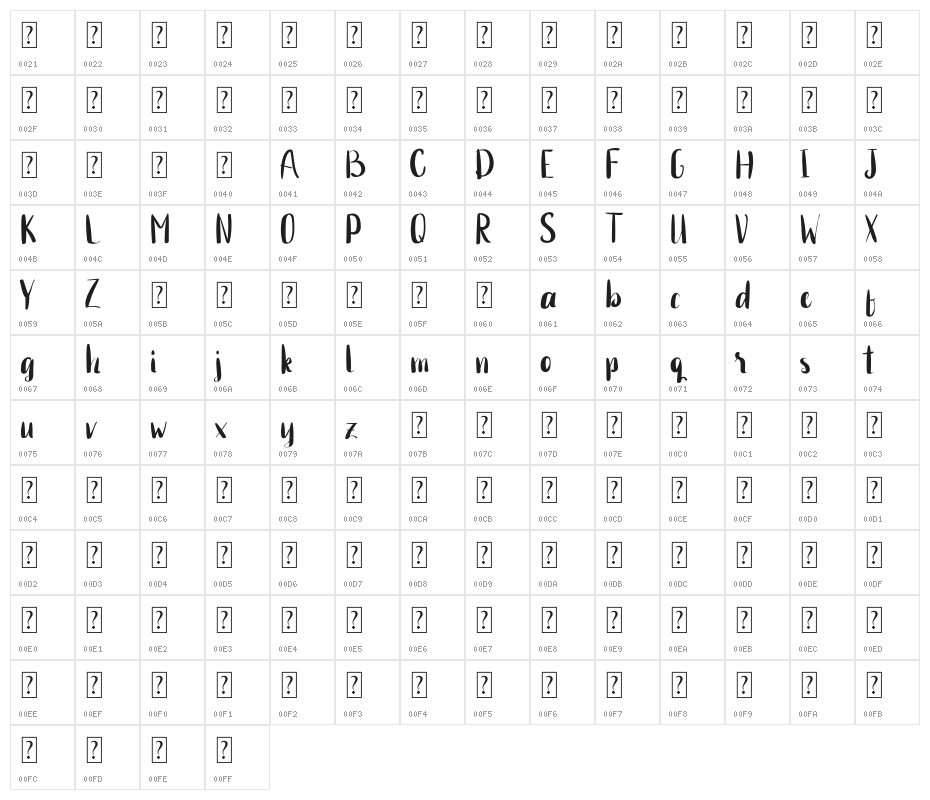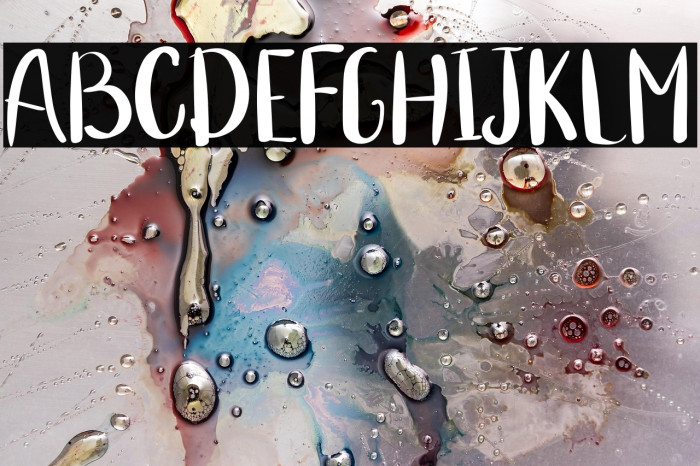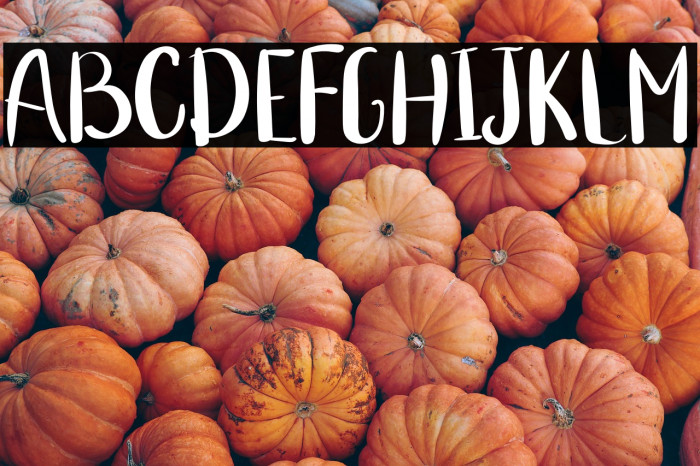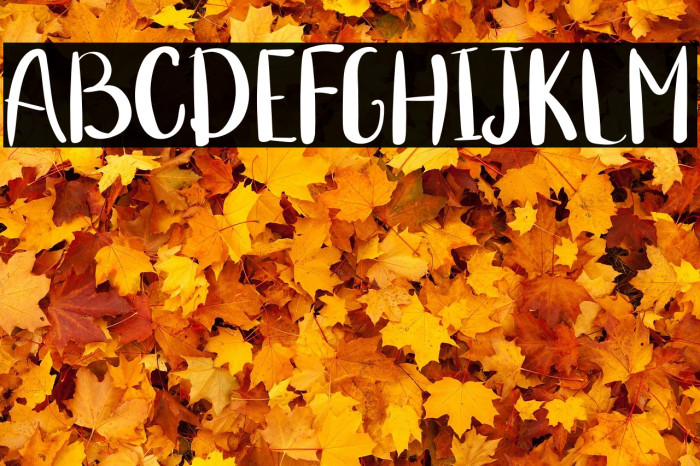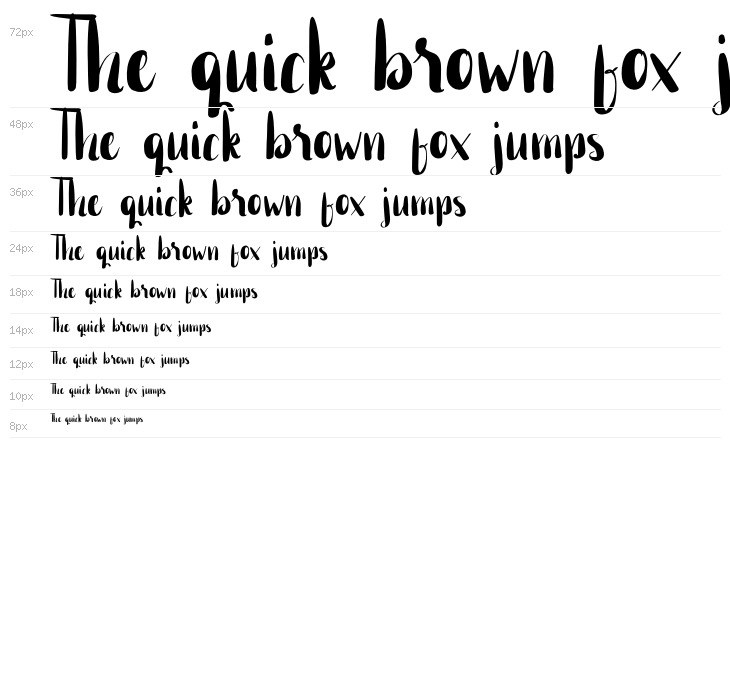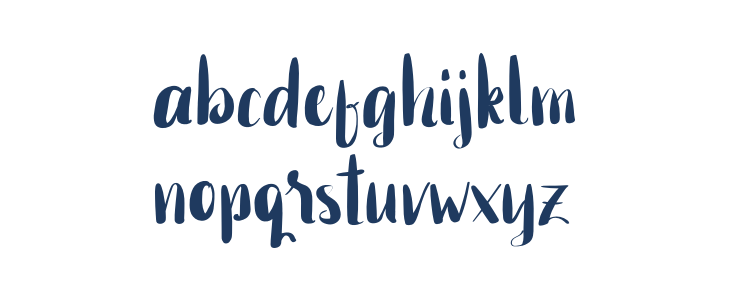
Genstay Font
Genstay Description
This font features a playful and artistic handwritten style, characterized by its fluid and dynamic strokes. The uppercase letters exhibit a bold presence with varying stroke widths, adding a sense of movement and energy. The lowercase letters maintain a cohesive flow, with some characters displaying unique loops and curves that enhance its whimsical nature. The font's overall appearance is both casual and expressive, making it suitable for creative projects. The absence of traditional serifs and the irregularity in letterforms contribute to its informal and approachable feel. This font is ideal for designs that aim to convey a sense of fun and creativity.
| Proposed Projects | Ideal for greeting cards, invitations, posters, and branding that requires a personal touch. |